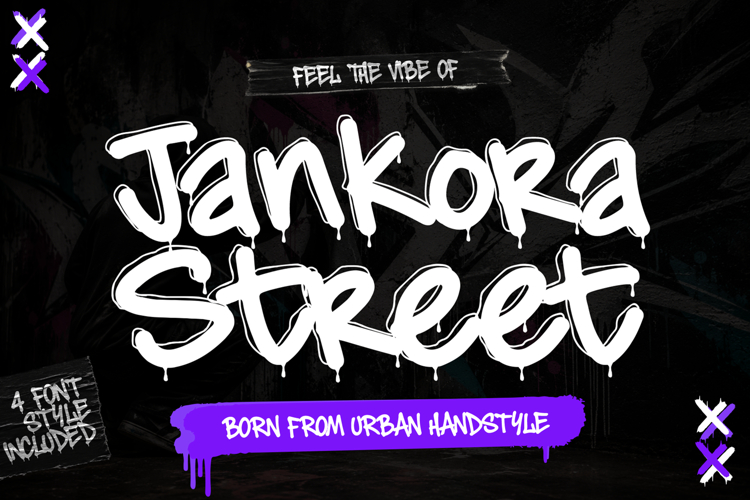
Jankora Street | Monoline Dripping Decorative Graffiti Font
Bring the raw energy of urban culture into creative projects with Jankora Street, a bold monoline dripping decorative graffiti font inspired by authentic street tagging, underground art walls, and modern urban handstyle aesthetics. Designed to capture the rebellious spirit of city nightlife, hip-hop culture, and expressive graffiti lettering, this font delivers a powerful visual identity that instantly stands out.
Jankora Street combines smooth monoline strokes with dripping ink details, creating a dynamic and handcrafted appearance filled with energy, movement, and artistic character. Suitable for posters, streetwear branding, album covers, YouTube thumbnails, social media graphics, stickers, packaging, esports visuals, and urban-themed merchandise.
Crafted with strong display aesthetics, Jankora Street works beautifully in both digital and print compositions. The bold handwritten structure creates natural flow while the dripping decorative elements add gritty graffiti atmosphere inspired by real wall art and spray-paint culture.
This package includes 4 powerful styles for versatile typography compositions and different visual moods:
Included Font Styles- Jankora Street Regular
- Jankora Street Drip
- Jankora Street Decorative
- Jankora Street Melt
Each style carries its own unique urban character while maintaining the authentic Jankora Street identity. Regular offers cleaner street aesthetics, Drip adds aggressive graffiti energy, Decorative enhances artistic compositions, and Melt delivers experimental urban visuals.
Features- Uppercase Characters
- Numbers & Punctuation
- Handcrafted Graffiti Style
- Monoline Urban Letterforms
- Dripping Decorative Details
- Smooth Flowing Strokes
- Strong Display Typography
- High Visual Impact
The handcrafted urban energy makes every word feel expressive and bold. The dripping graffiti texture creates movement and underground atmosphere while maintaining readability for large titles and display text.
Multilingual support allows broader typography compositions across various languages. Combined with punctuation and number support, complete visual layouts can be created with consistency and flexibility.
Jankora Street is inspired by urban expression, underground creativity, and modern street culture. Every curve and drip was carefully designed to bring authentic graffiti aesthetics into modern typography compositions.
Perfect for bold headlines, edgy branding, rebellious visuals, and modern urban typography with strong handcrafted personality.